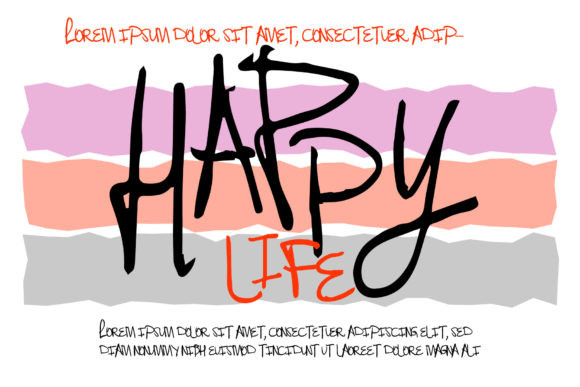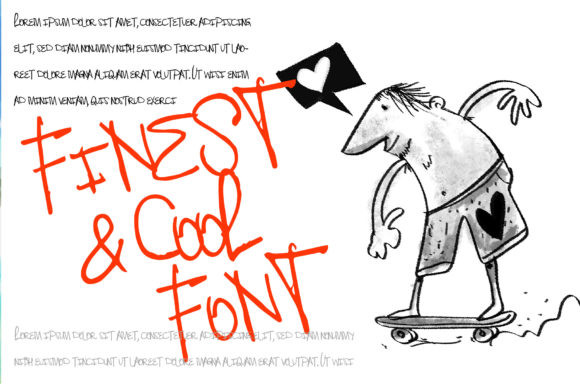
Brutus Font
Brutus embodies fun, quirkiness and authenticity. This enchanting handwritten font will turn any creative idea into a true standout. Brutus will look outstanding in any context, whether it’s being used on busy backgrounds or as a standalone headline!